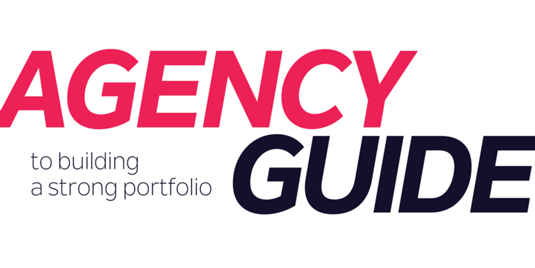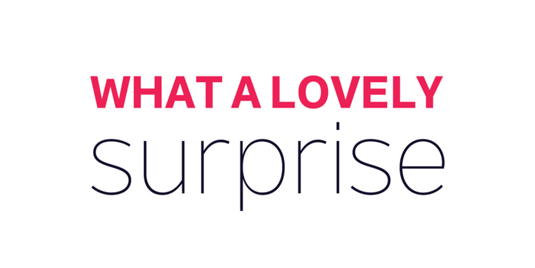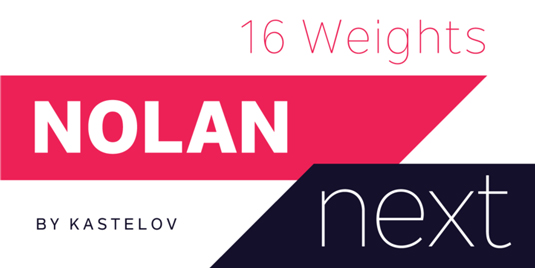
Font of the day: Nolan Next
Nolan Next by Galin Kastelov
Today's typeface of choice is sans serif Nolan Next. Created by type designer Galin Kastelov, Nolan Next is suitable for a variety of print and digital projects, from branding and corporate identity to editorial and web design.